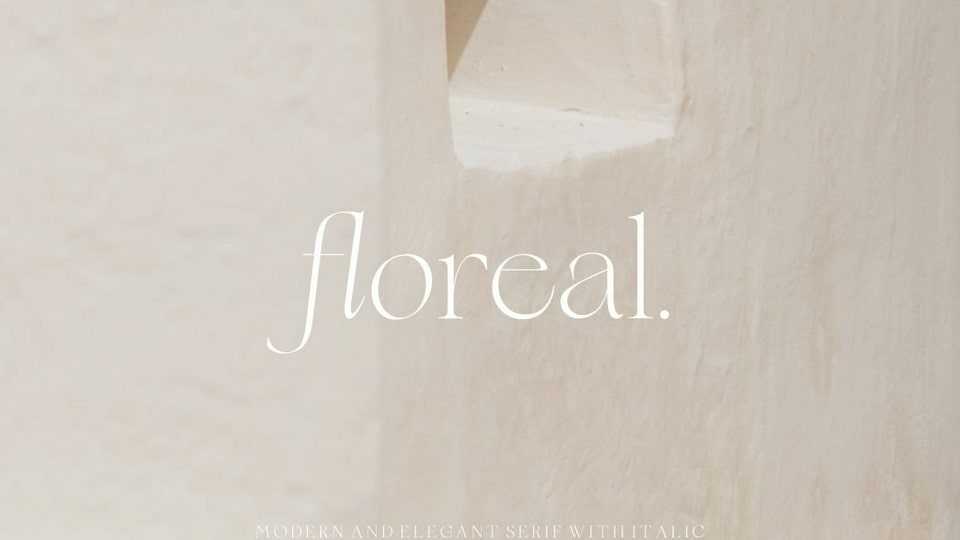
Download Floreal font, an elegant, modern and classy serif typeface with fashionable touch. Floreal is perfect for corporate identities, websites, publications, titles, books, magazines, business cards, logos, product labels, packaging, or any kind of advertising purpose.